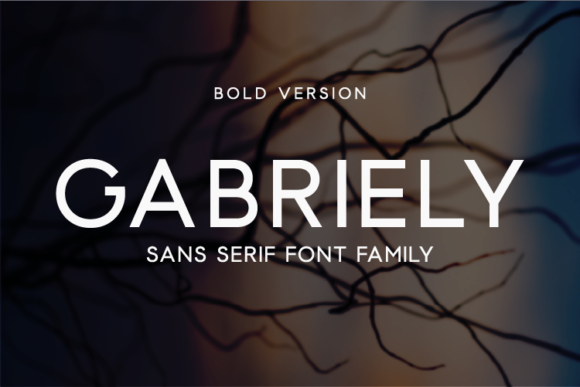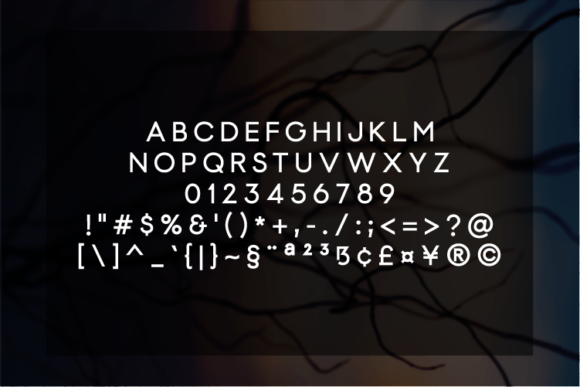
HomeSans Serif FontsGabriely Bold Font Sans Serif Fonts Gabriely Bold Font FacebookXPinterestWhatsApp Gabriely Bold Font 1 of 2 About Gabriely Bold Font Gabriely is a clean, modern sans serif typeface that has been passionately designed with great attention to detail. An essential font and a great asset to own, Gabriely will give any project a simplistic and timeless look. DOWNLOAD NOW People also explored Lamp Font Antariksa Font Maderon Font Romttar Font Promise Font Funny Cute Font Lunar Wave Font Pigeon Lovely Font Kakarotto Font 323 0 TagsGabriely Bold Font Previous articleGabriely Extra Bold FontNext articleGabriely Semi Bold Font LEAVE A REPLY Cancel reply Comment: Please enter your comment! Name:* Please enter your name here Email:* You have entered an incorrect email address! Please enter your email address here Website: Save my name, email, and website in this browser for the next time I comment. Personal Use Free Mama Personal Use Free Read more about this font Lion Teen Personal Use Free Read more about this font Monofonto Personal Use Free Read more about this font Artisan Signature Personal Use Free Read more about this font BLOG Using Fonts in Digital Marketing: Tips to Strengthen Your Brand Identity In the realm of digital marketing, every visual element plays a crucial role in shaping a brand's identity, and fonts are no exception. The... Best Fonts for T-Shirt Design – Top 2025 Picks Top 7 Google Fonts Alternatives for Faster and Privacy-Friendly Web Design (2025) Elegant Wedding Invitation Fonts – Handwritten & Script Fonts